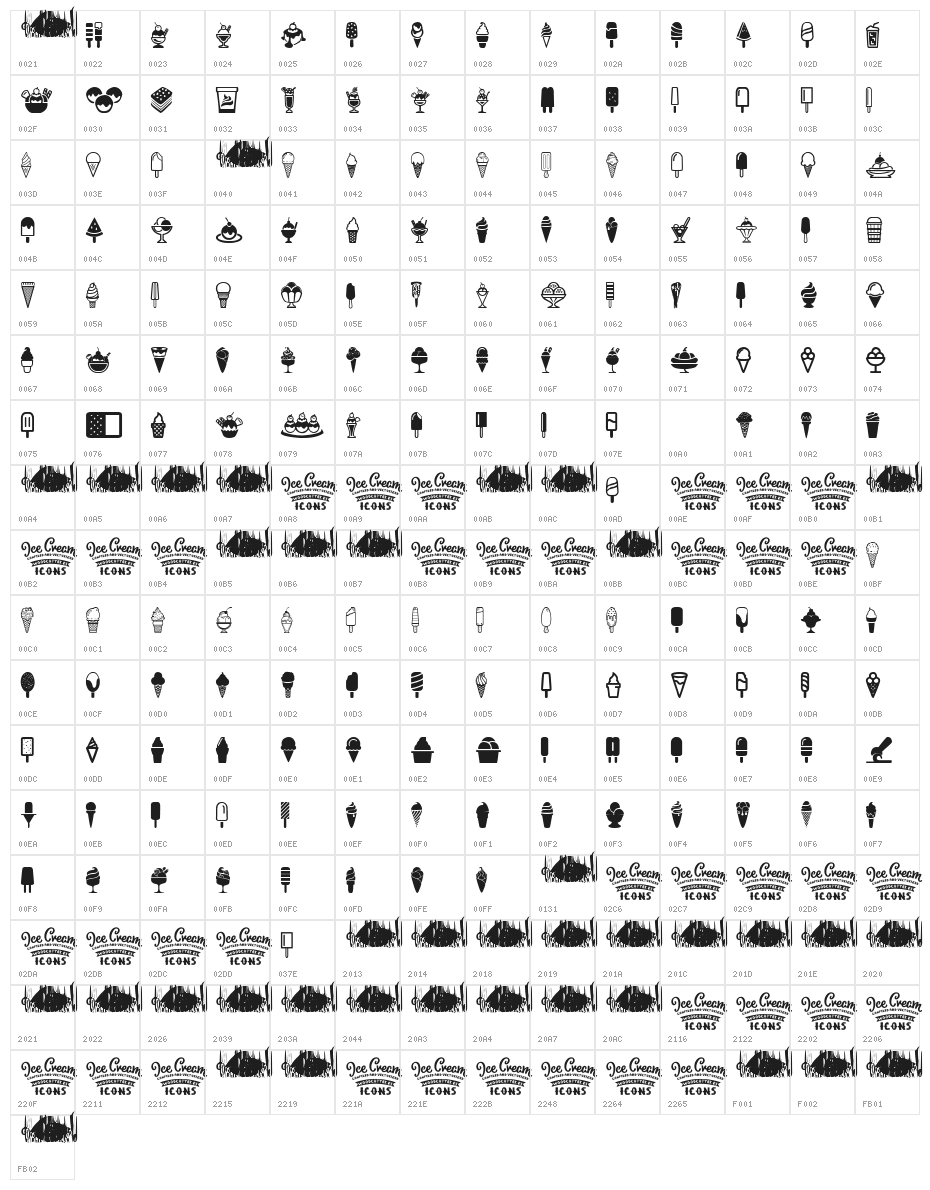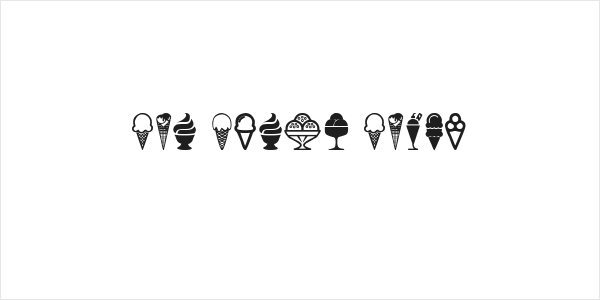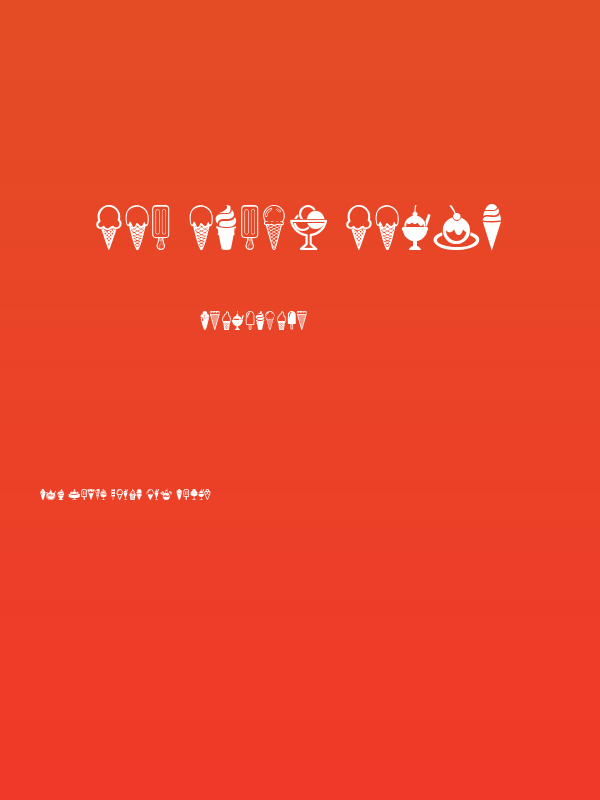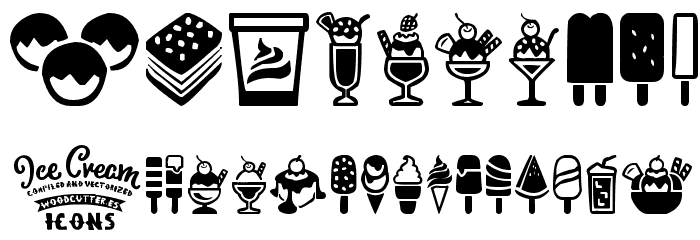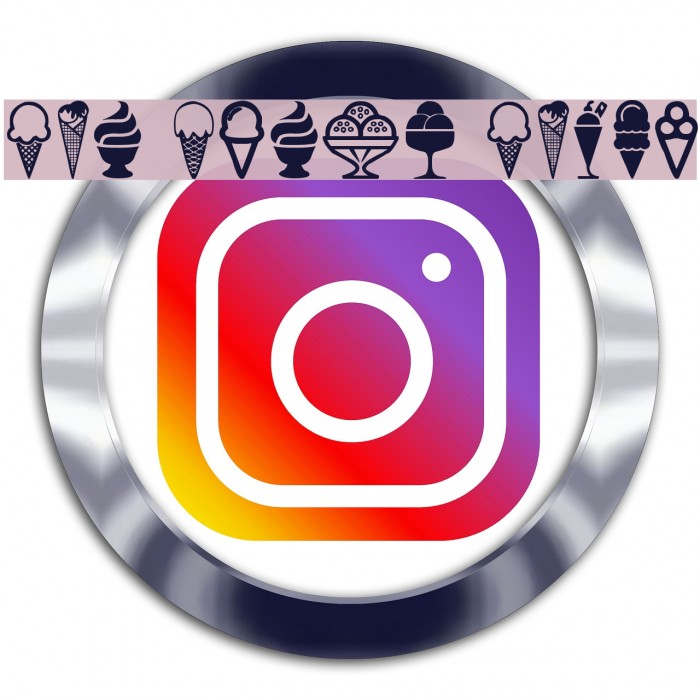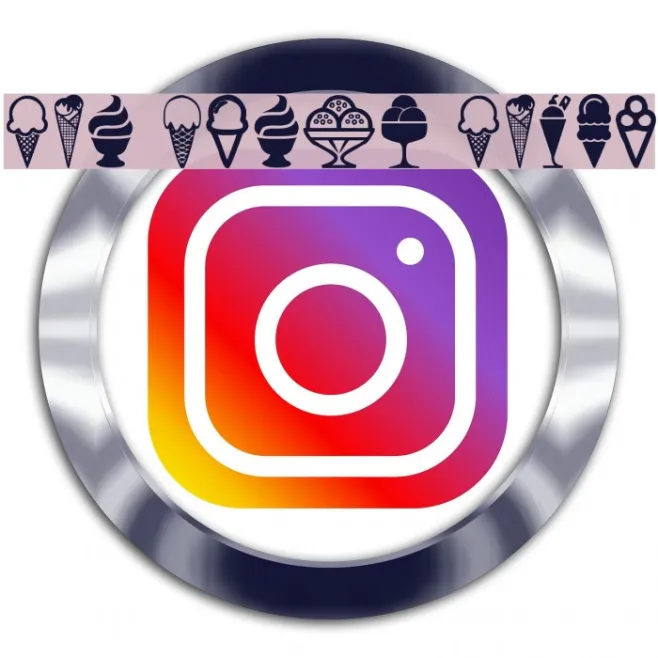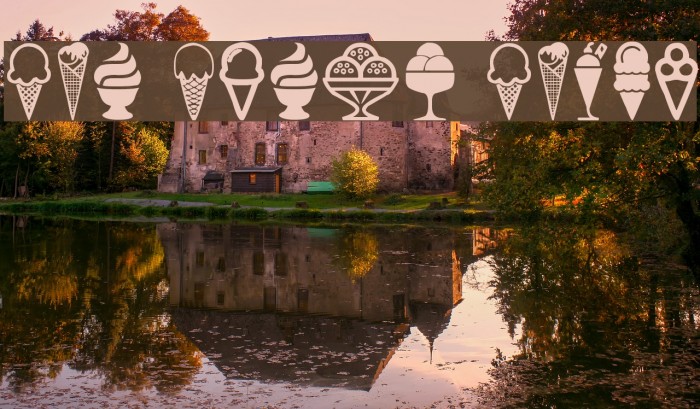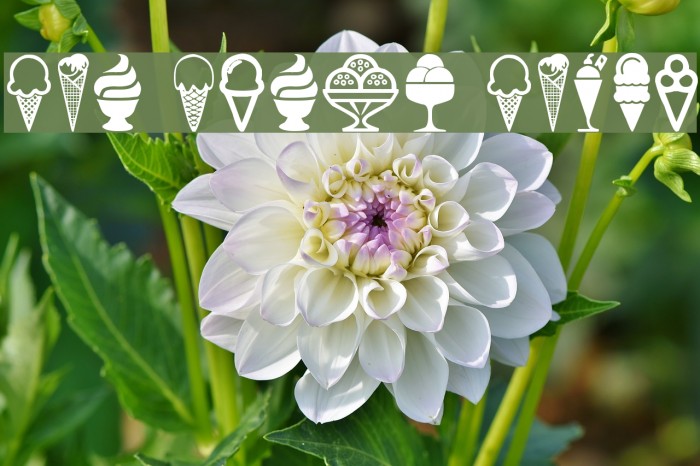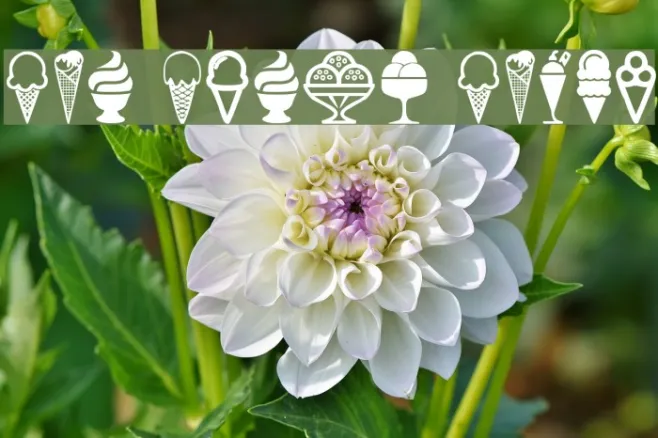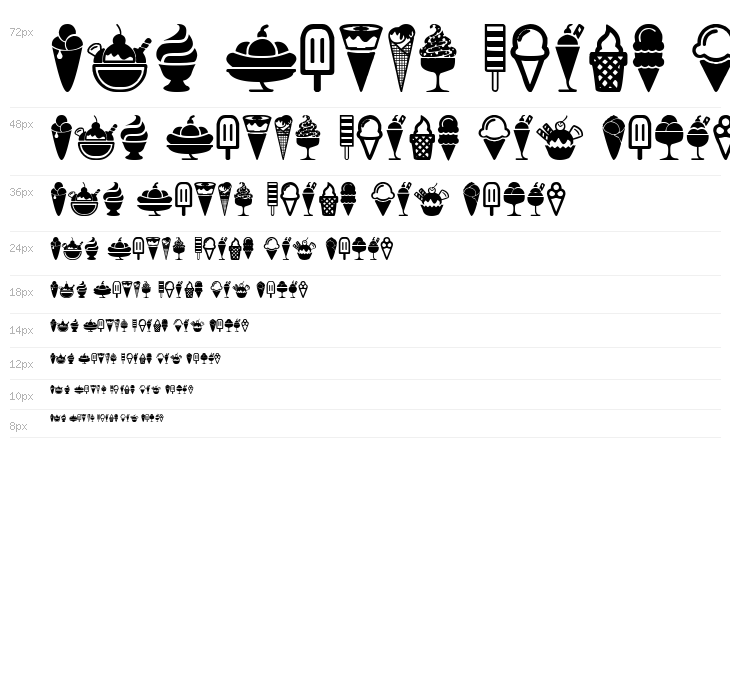
Ice Cream Icons Font
Ice Cream Icons Description
A playful and bold set of ice cream-themed icons with high contrast, featuring a mix of outlined and filled styles. The icons are decorative, with rounded shapes and whimsical details, suitable for fun and informal contexts.
| Overall Style | Decorative, Playful, Whimsical |
| Use Case | Icons, Logos, Packaging, Posters |
| Proposed Projects | Children's menus, summer event posters, dessert shop branding, social media graphics, stickers. |